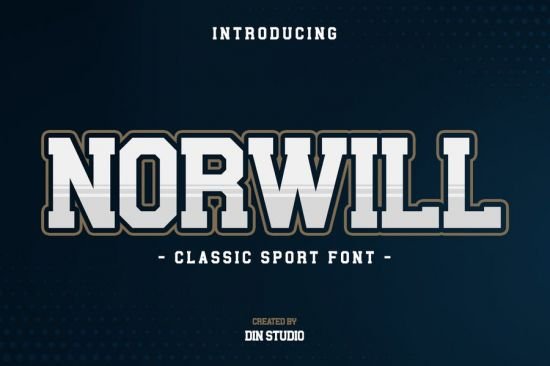
Norwill is a modern display font. Made for any professional project especially that related to the sports. Beside that, this font can be used for printing, branding and quotes.